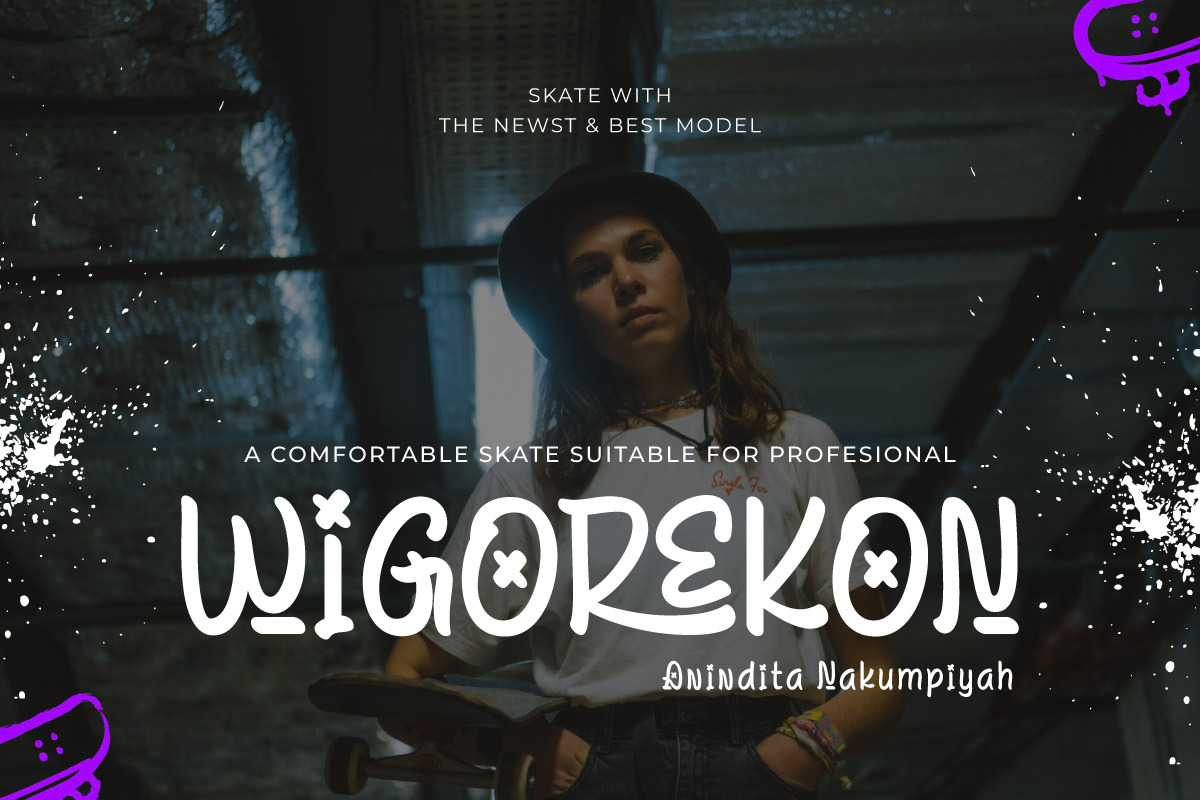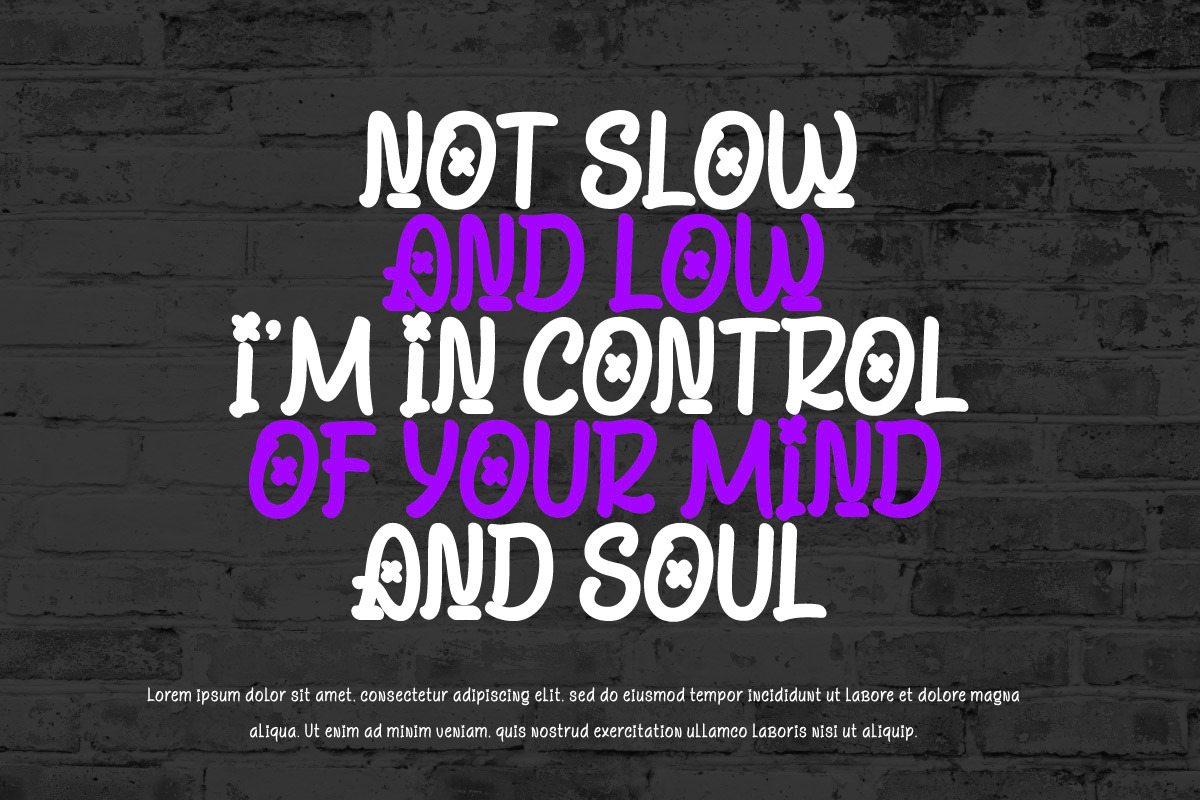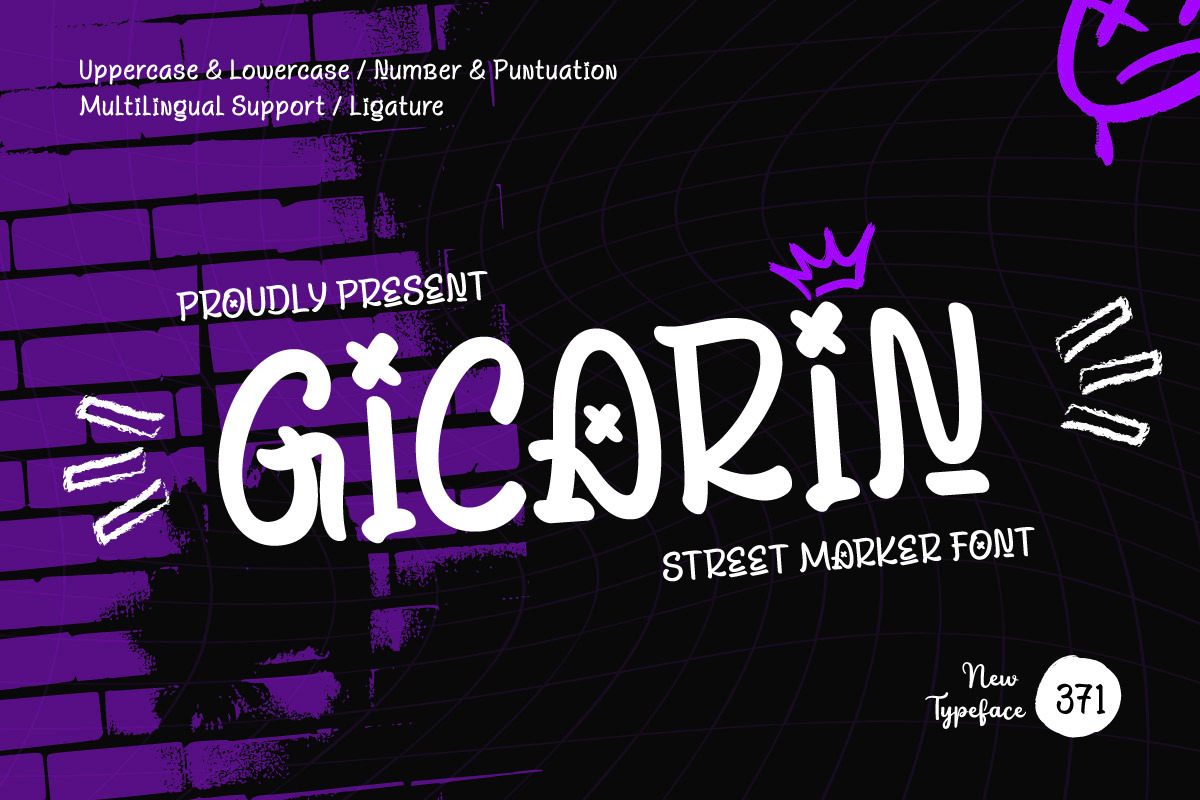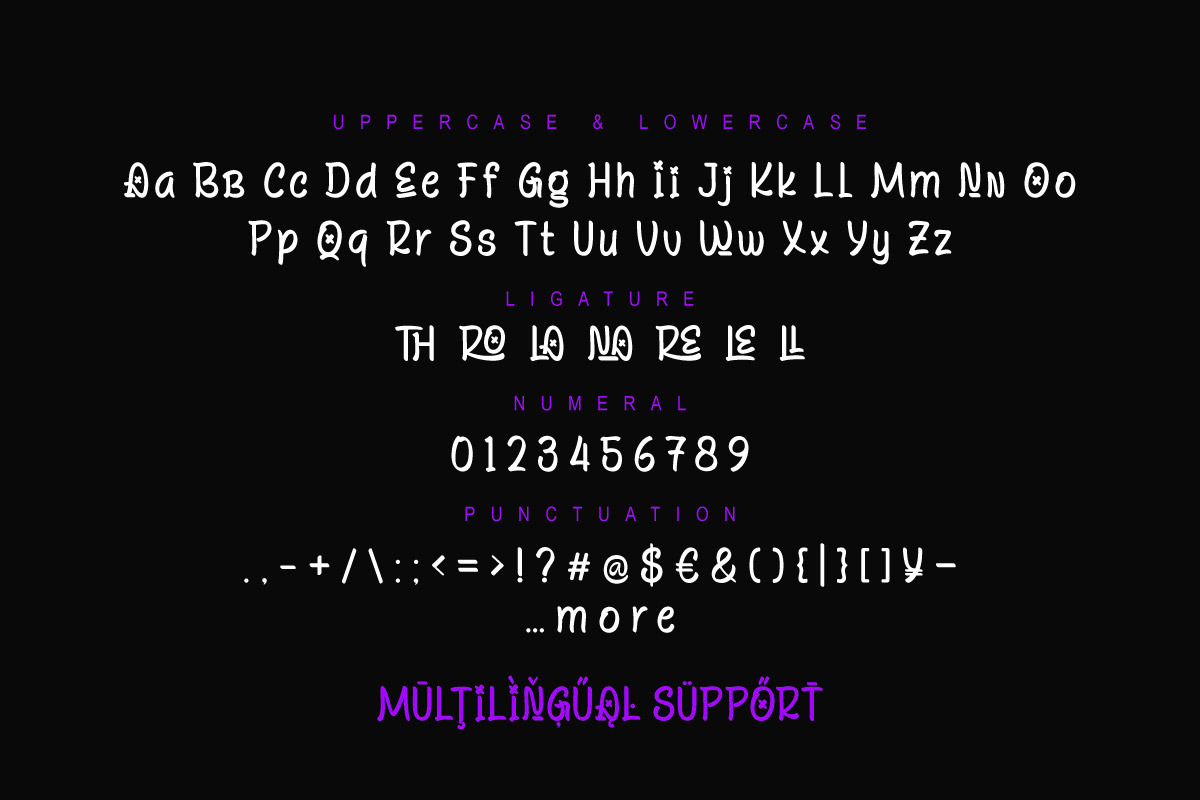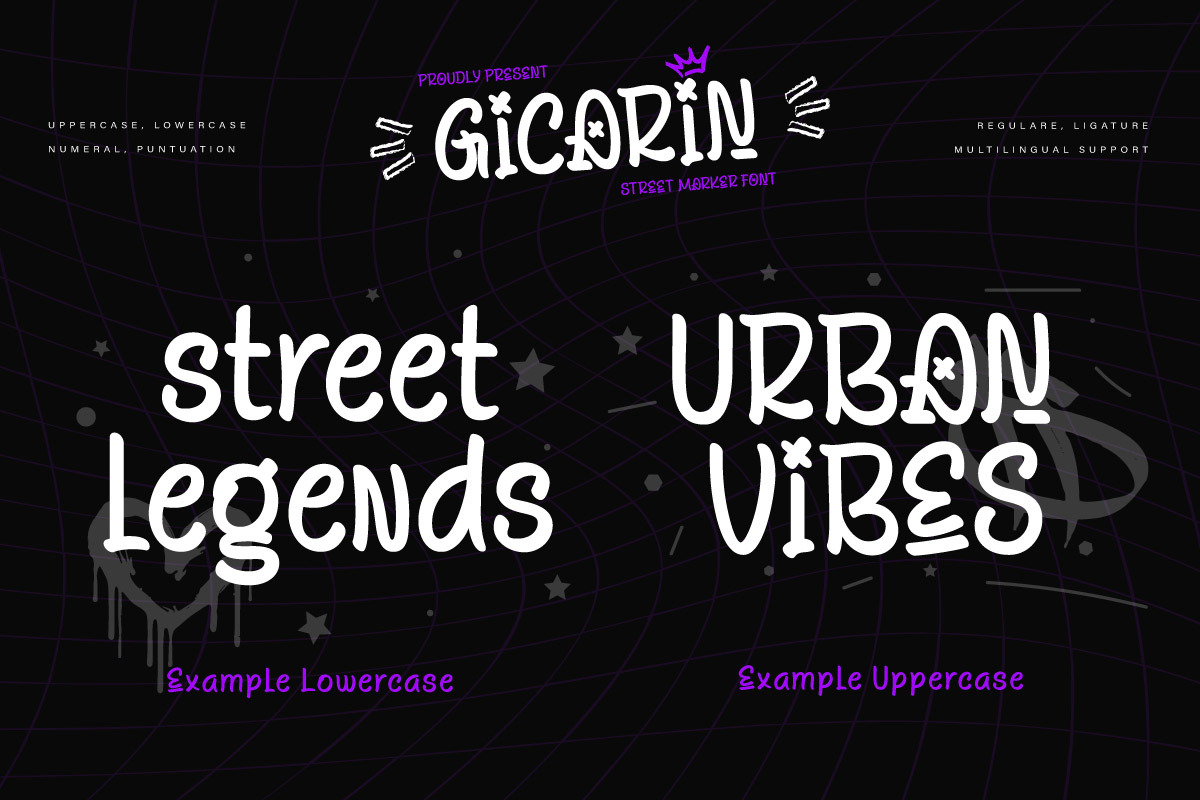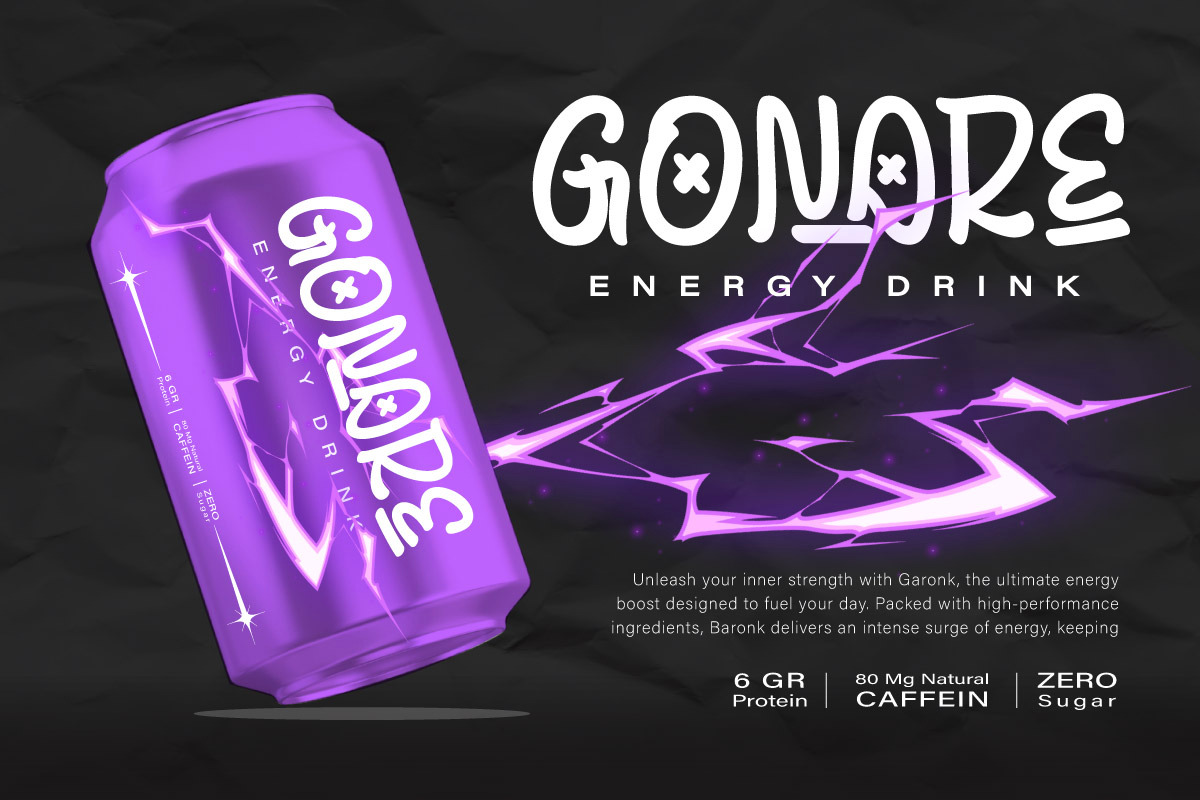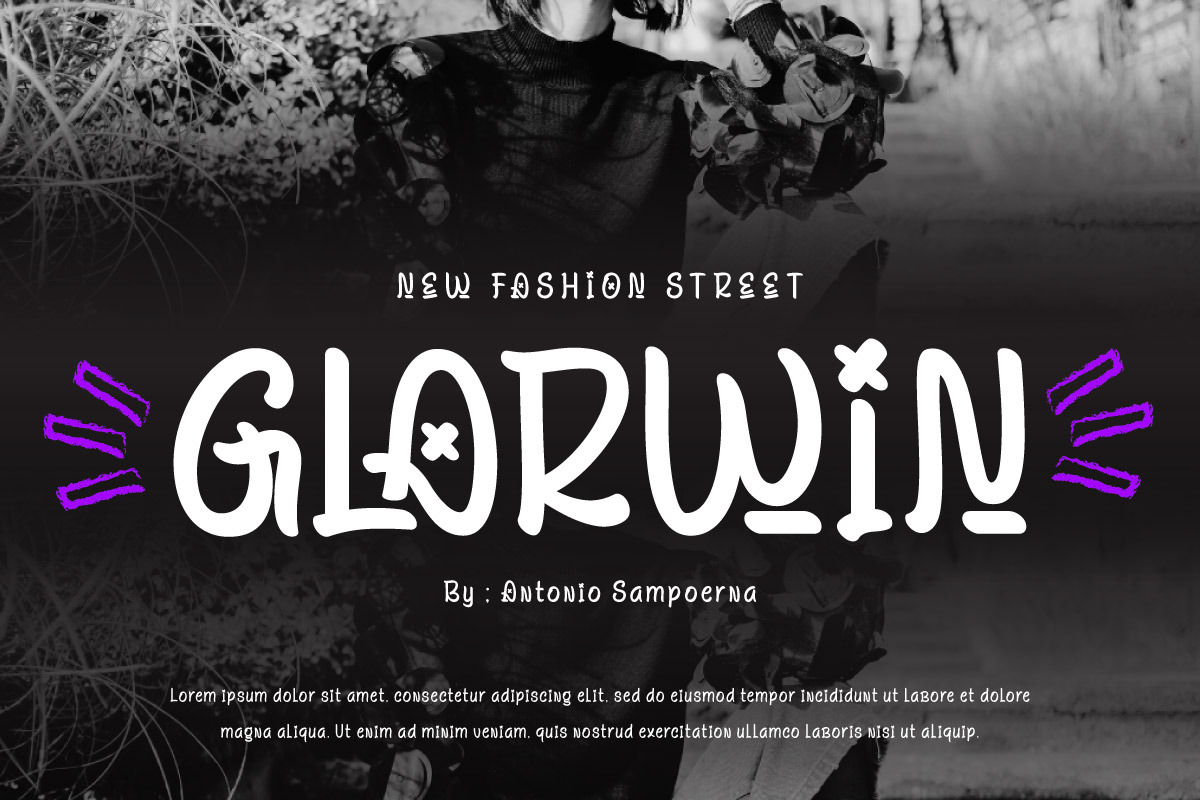
GICARIN - Graffiti Display Font
GICARIN - Graffiti Display Font is a bold and expressive typeface that embodies the raw energy of street art. With its graffiti-inspired strokes and rebellious flair, Gicarin is perfect for urban designs, streetwear branding, music covers, and any project looking for a dynamic, edgy aesthetic. This font captures the spontaneous, artistic spirit of graffiti culture, making your designs stand out with bold authenticity.
Unleash the power of street style with Gicarin, and add an urban, creative edge to your projects.